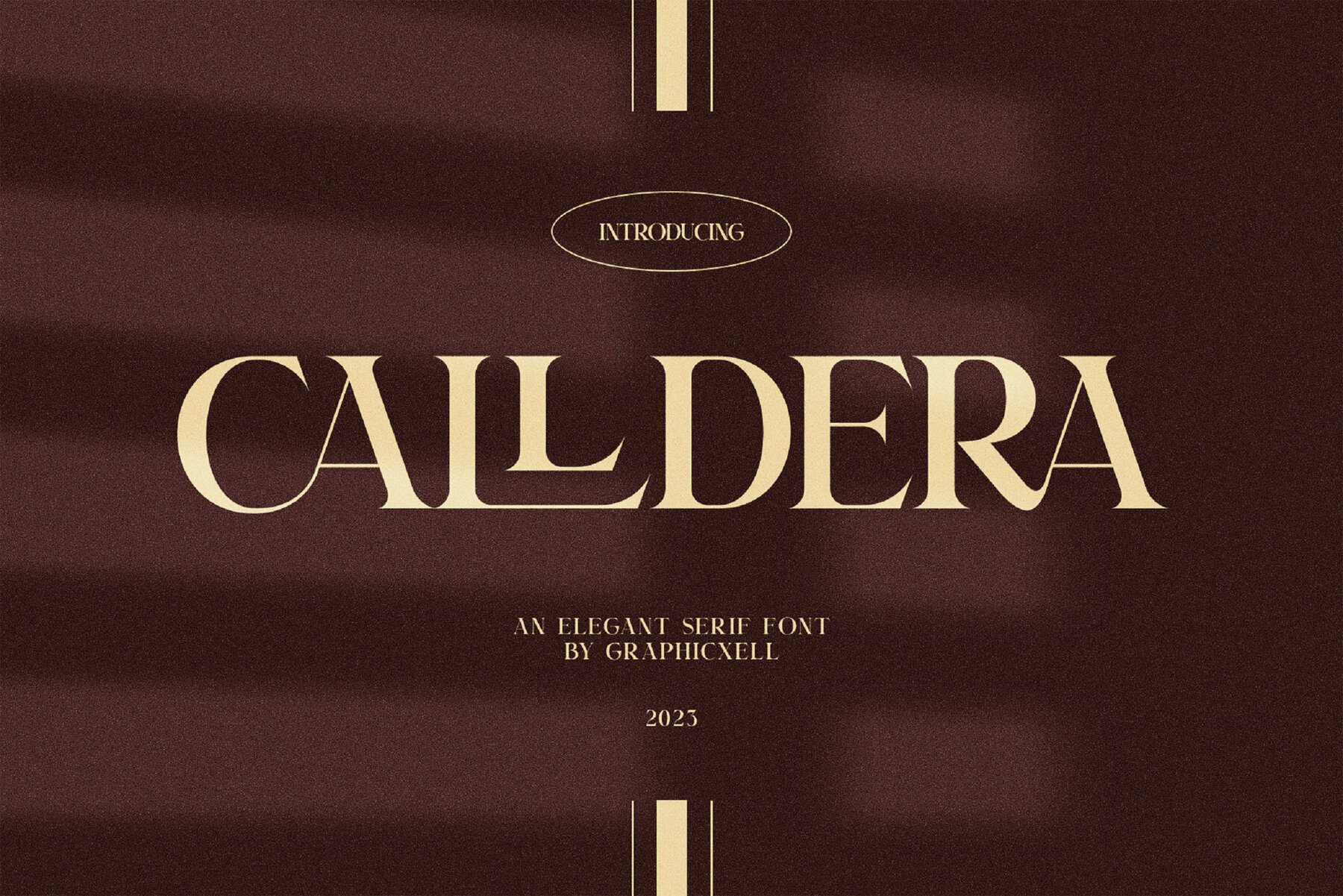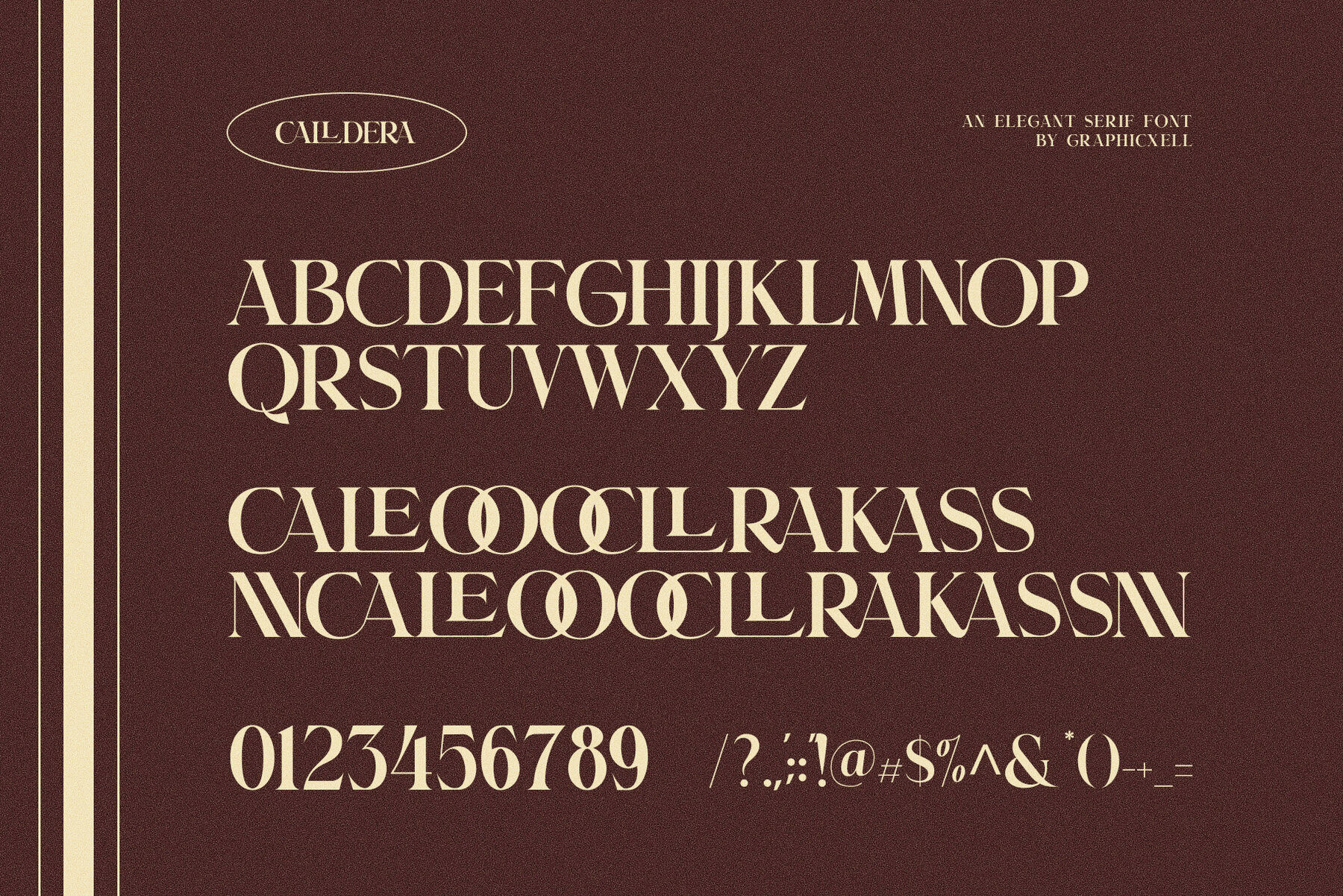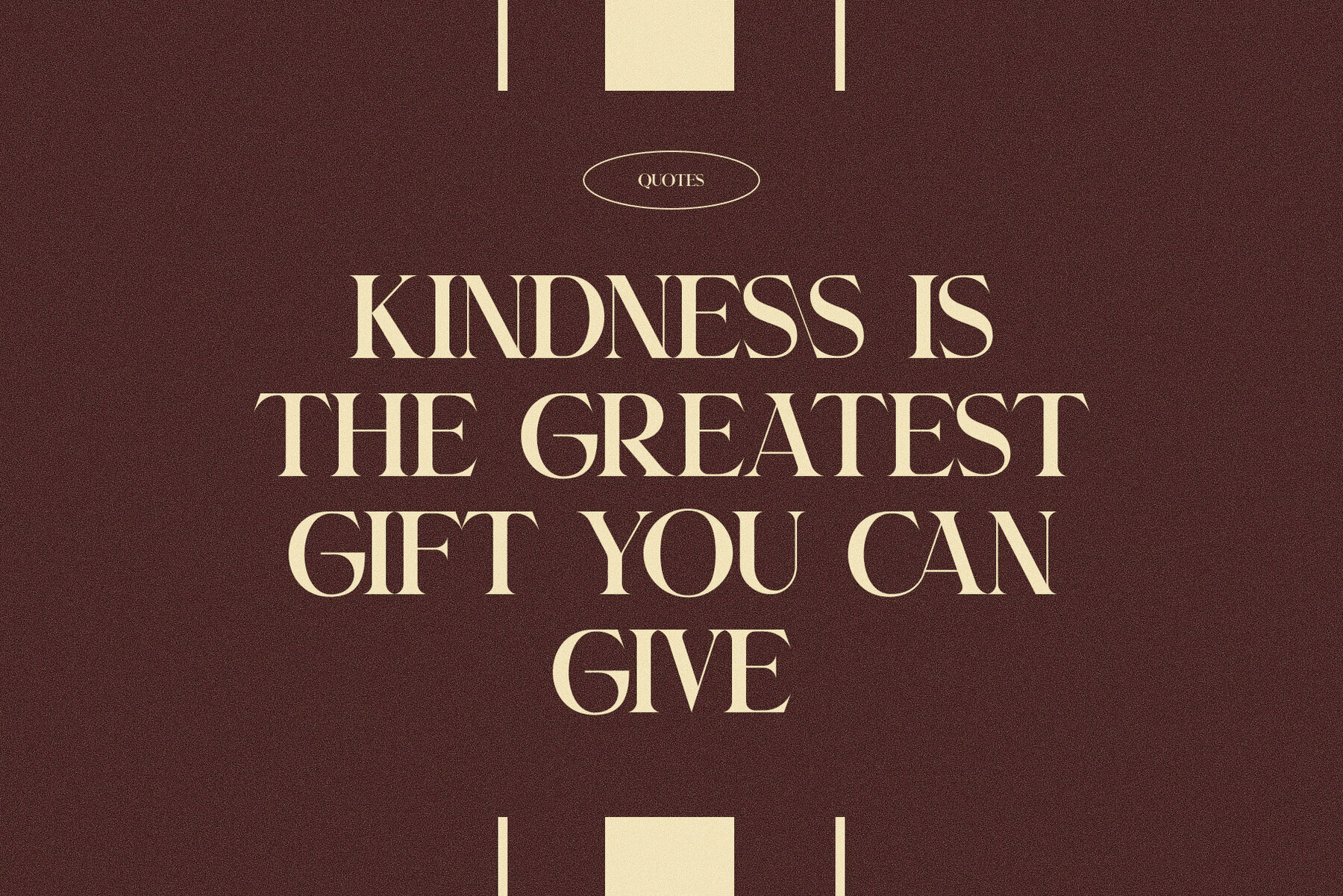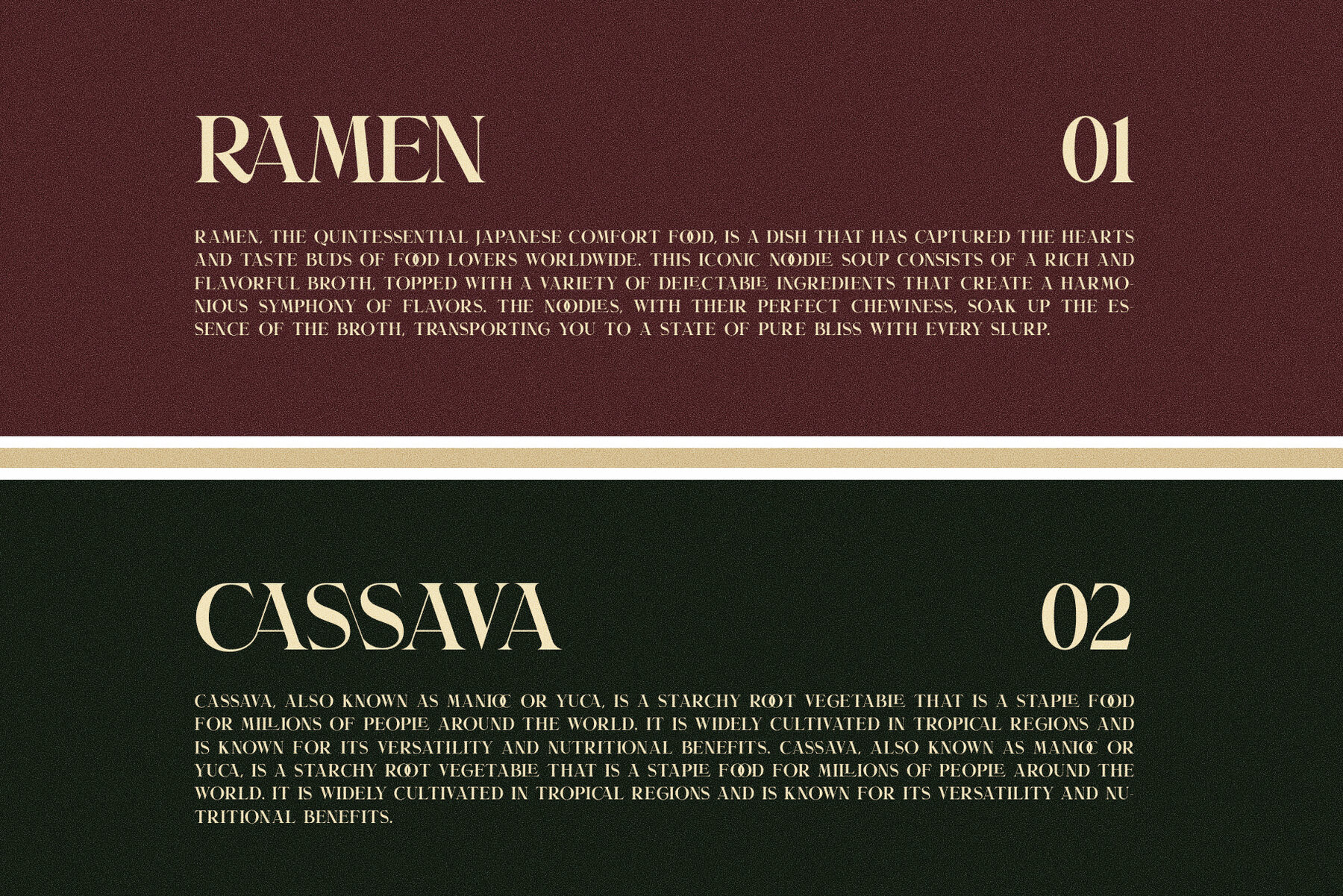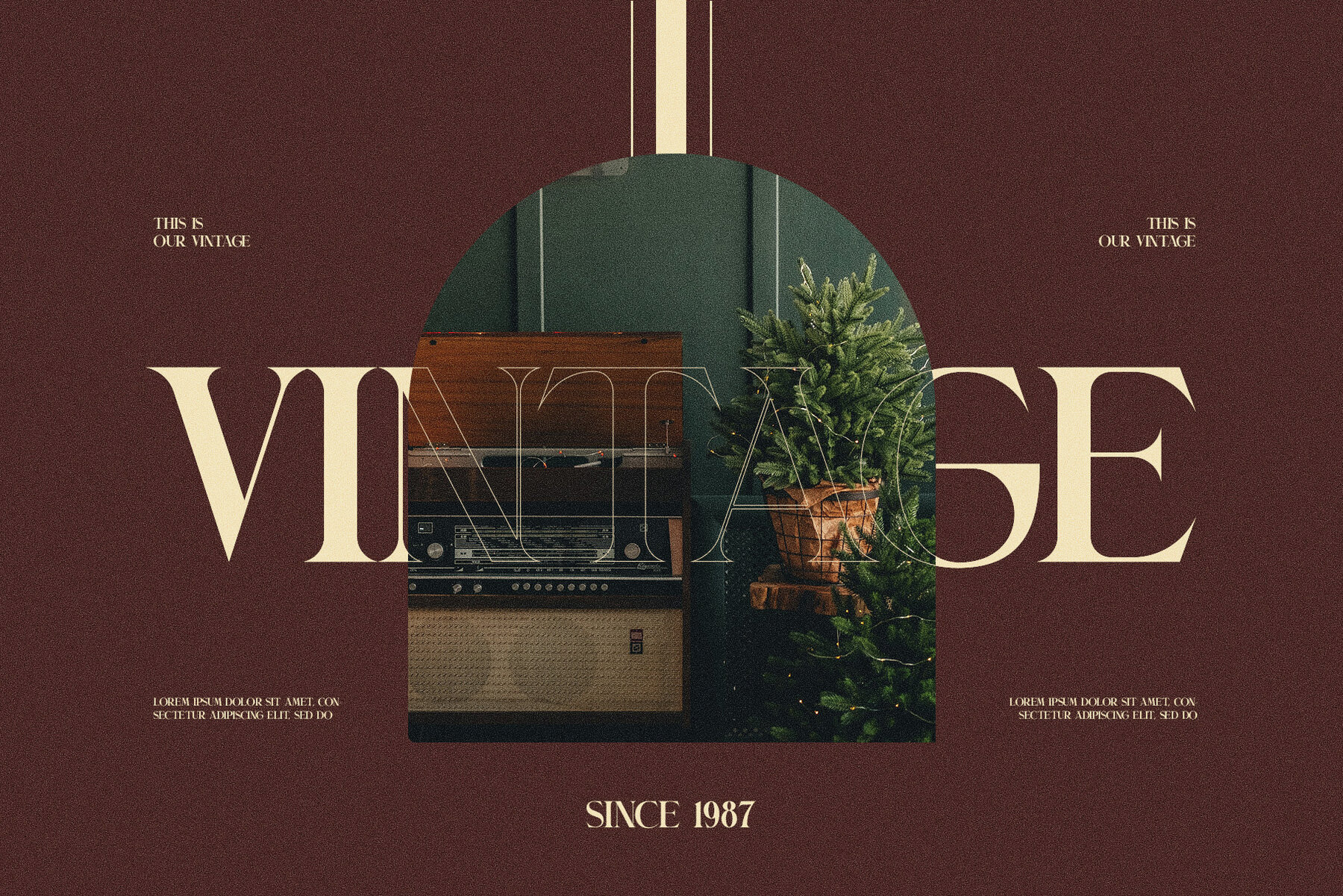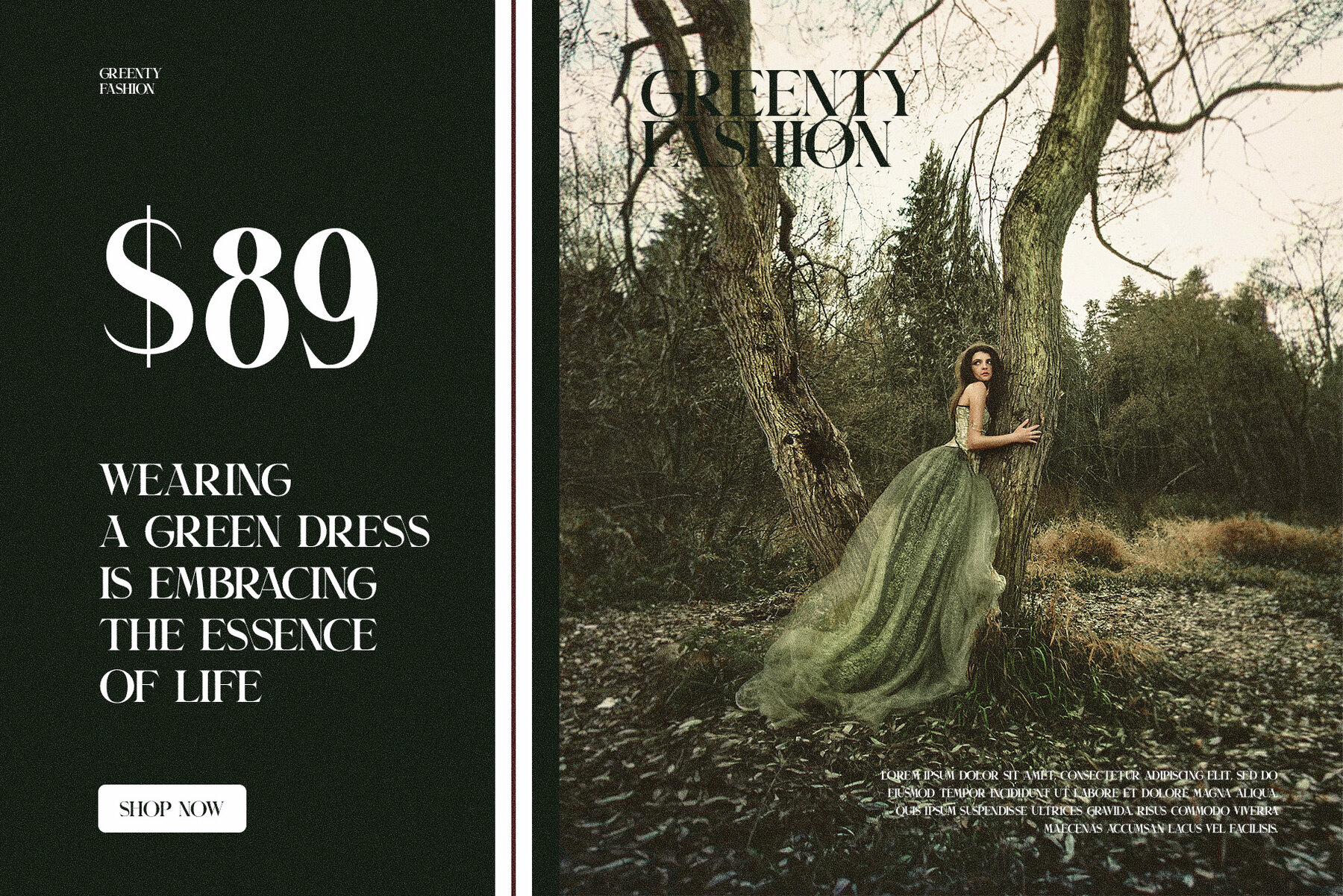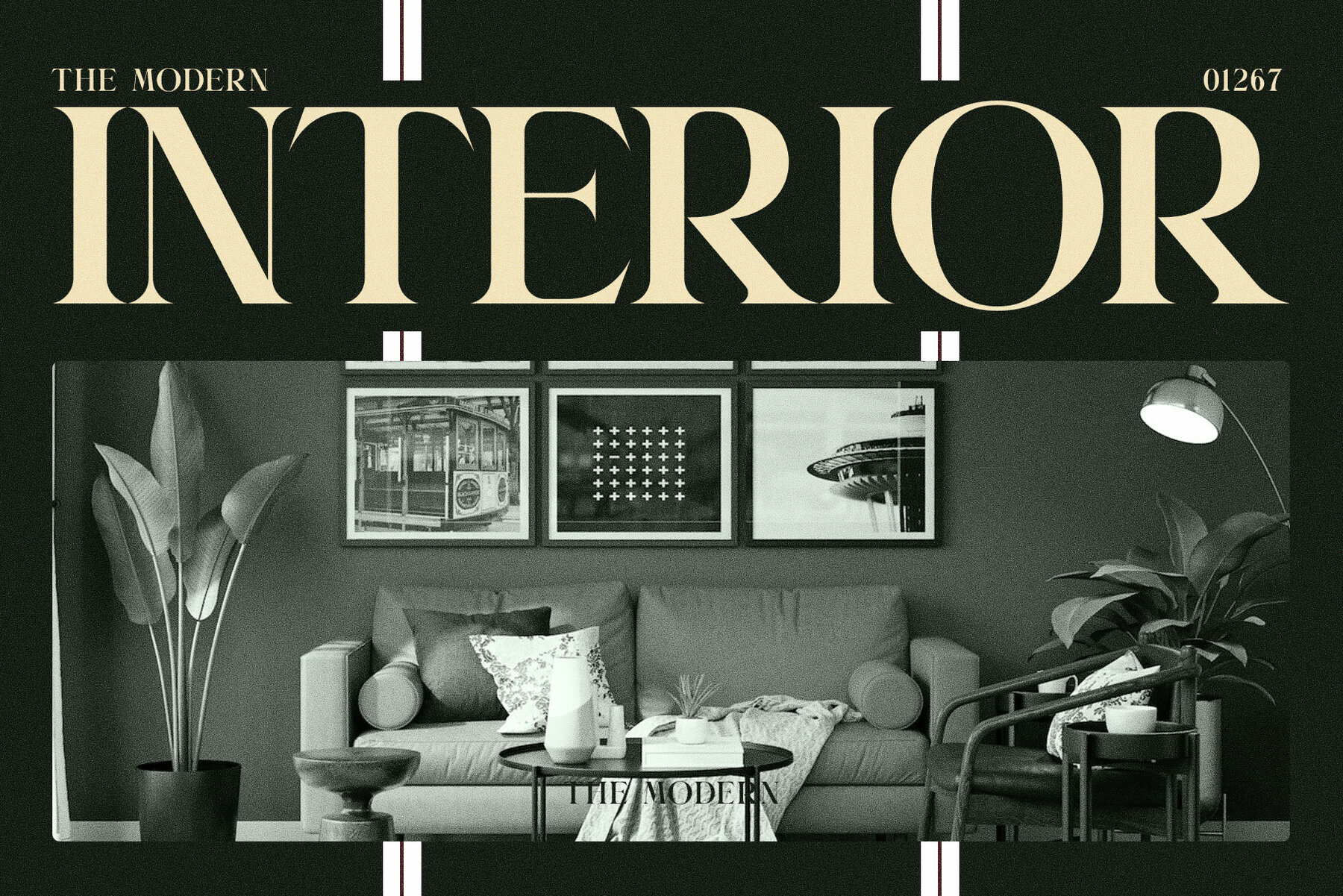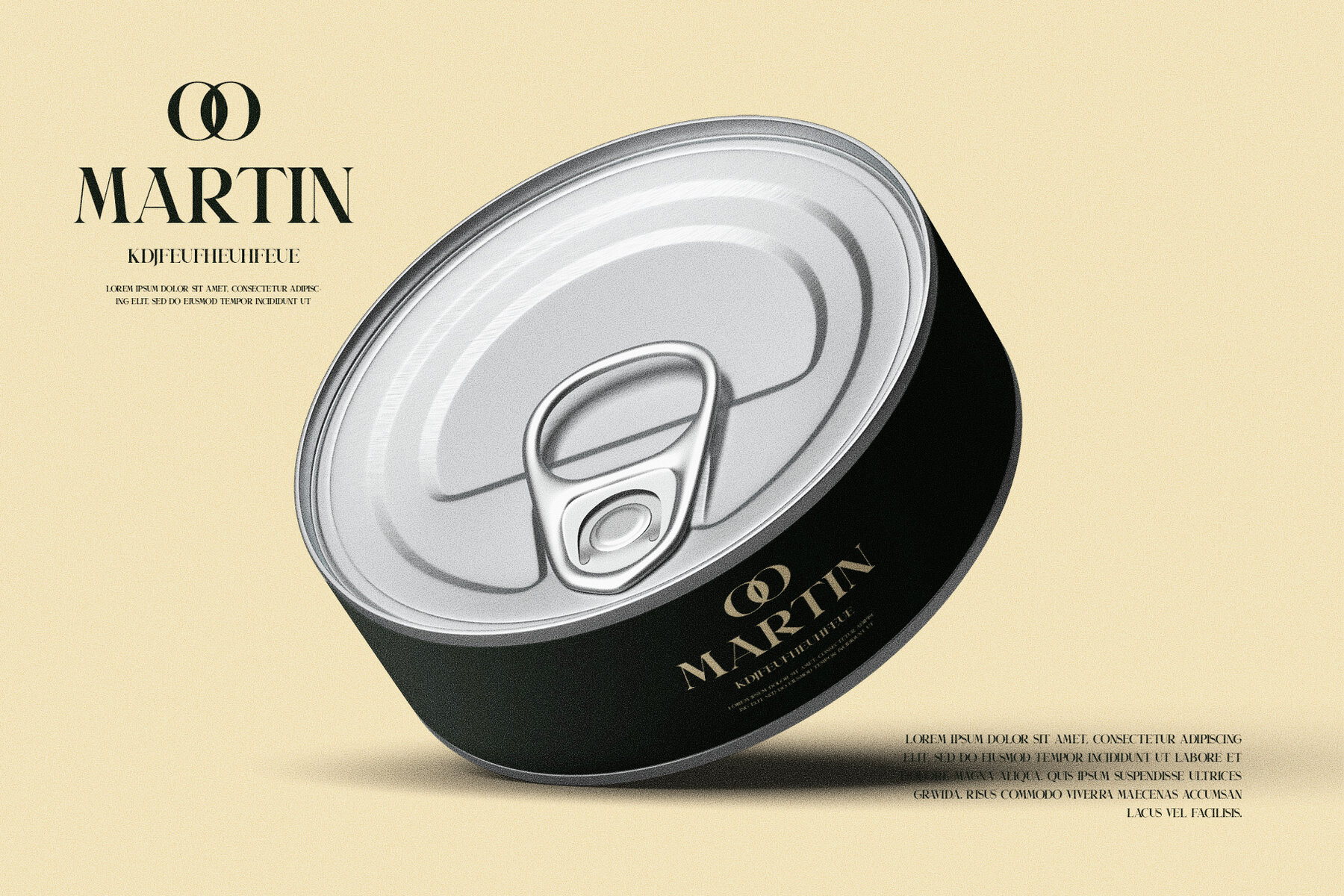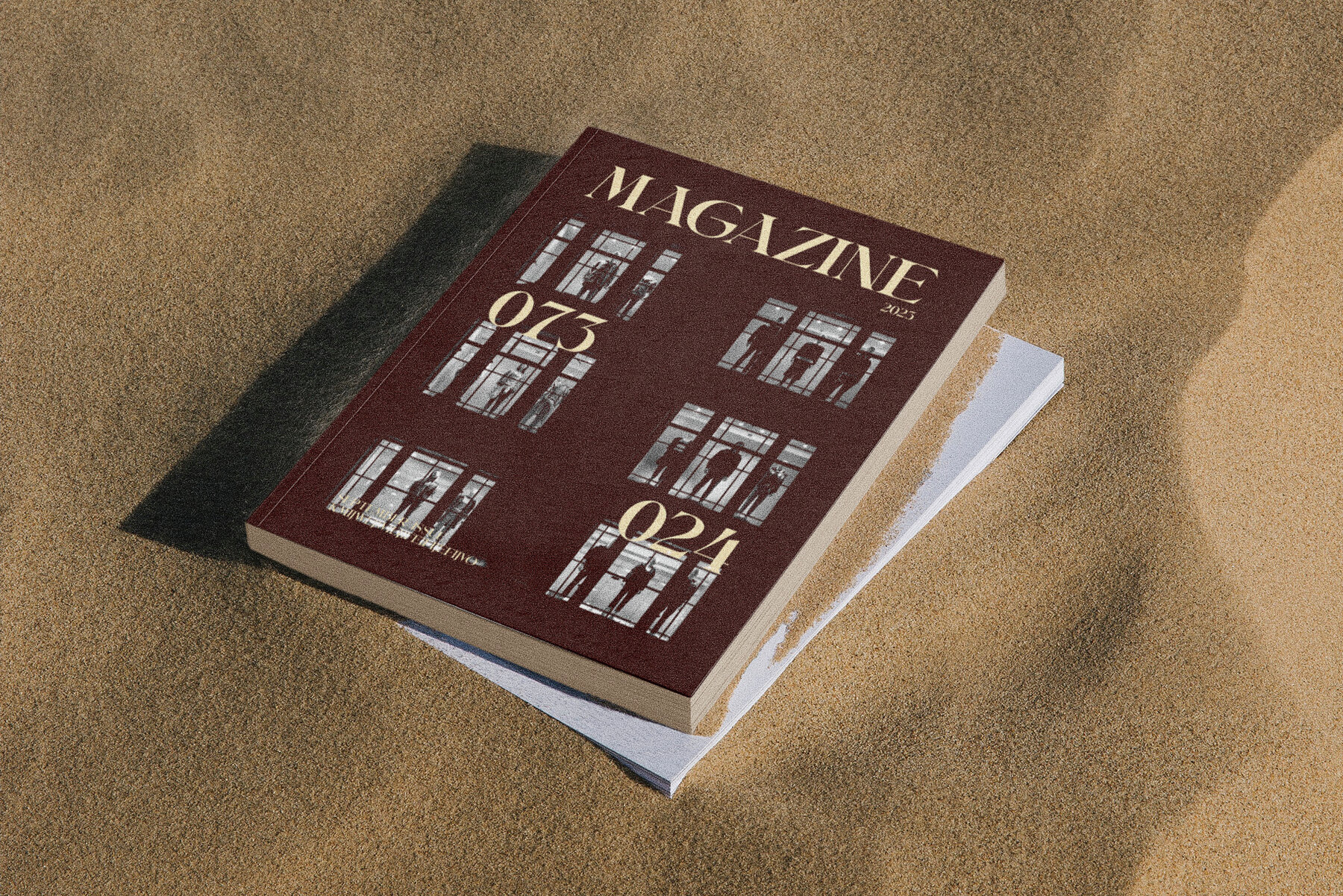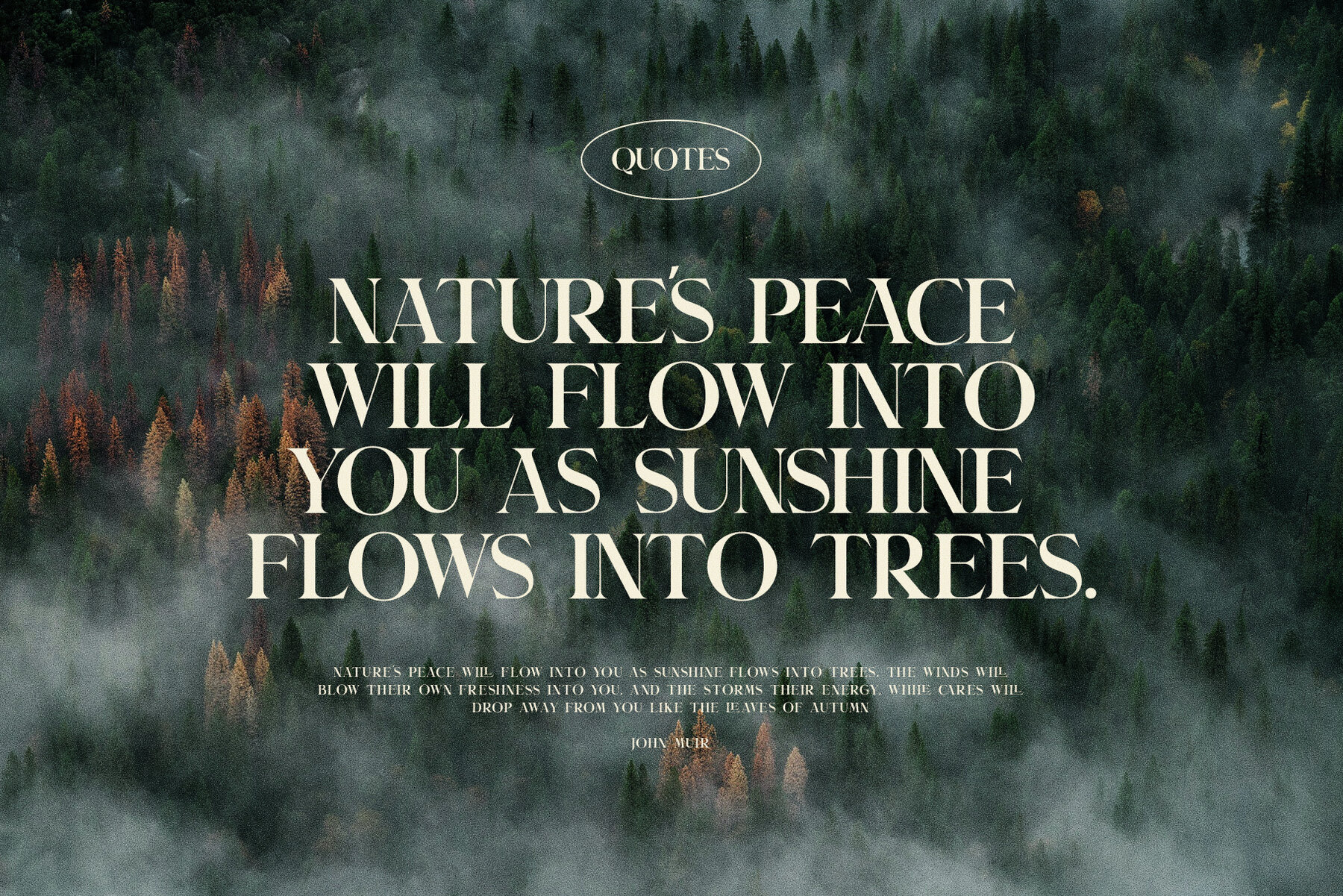
Calldera Font
Calldera Regular
Calldera by Graphicxell is a unique and elegant font designed for branding and logo designs. This serif typeface combines elegance with a modern style, making it suitable for a wide range of applications including branding projects, logos, wedding designs, social media posts, advertisements, product packaging, product designs, labels, photography, watermarks, invitations, and stationery. Its high readability ensures effective communication in any project. For optimal results, we recommend using Adobe Illustrator or Adobe Photoshop with Calldera. Should you have any questions, feel free to reach out; we're happy to assist.Calldera: Elegant Serif for Modern Branding